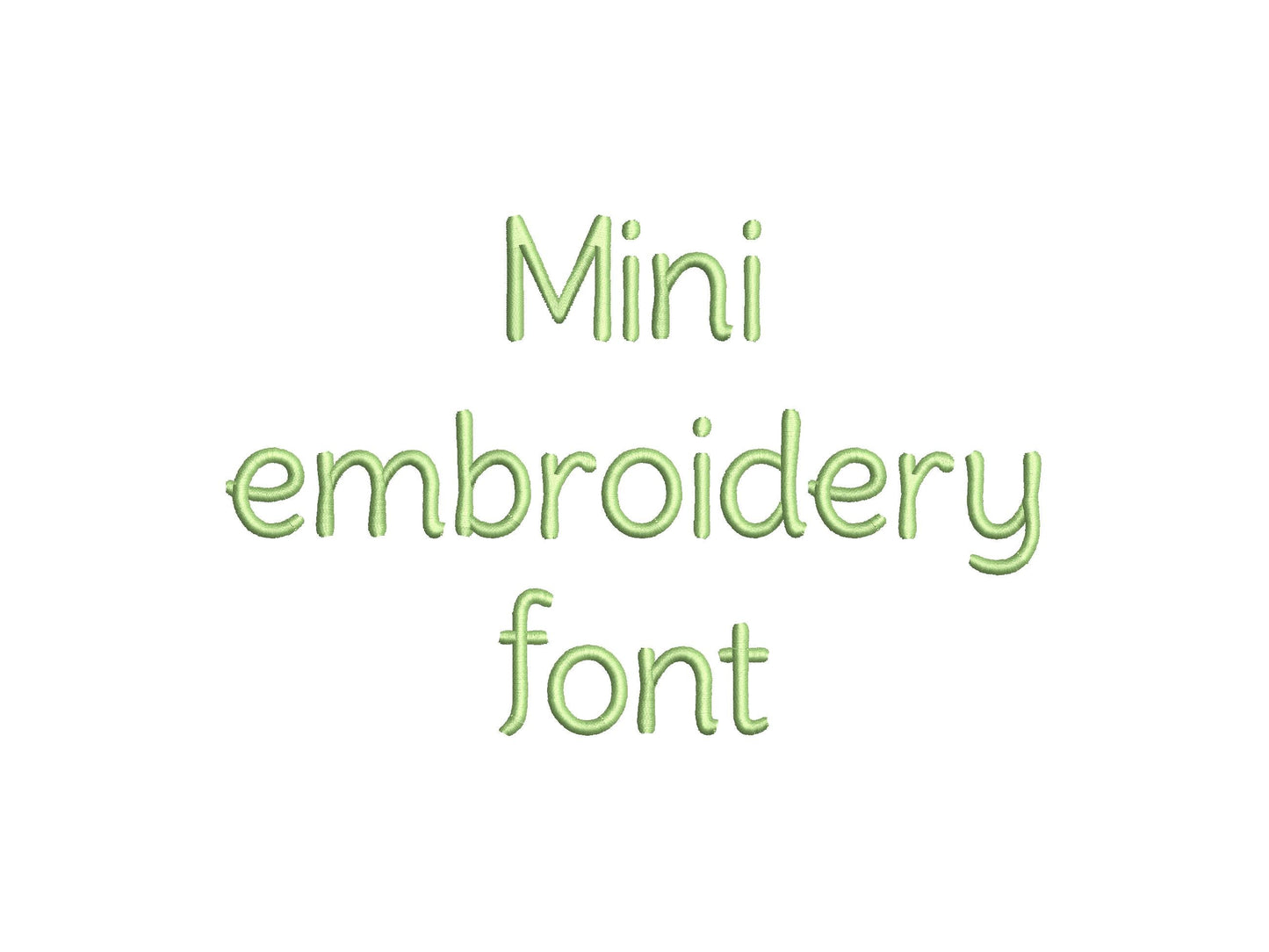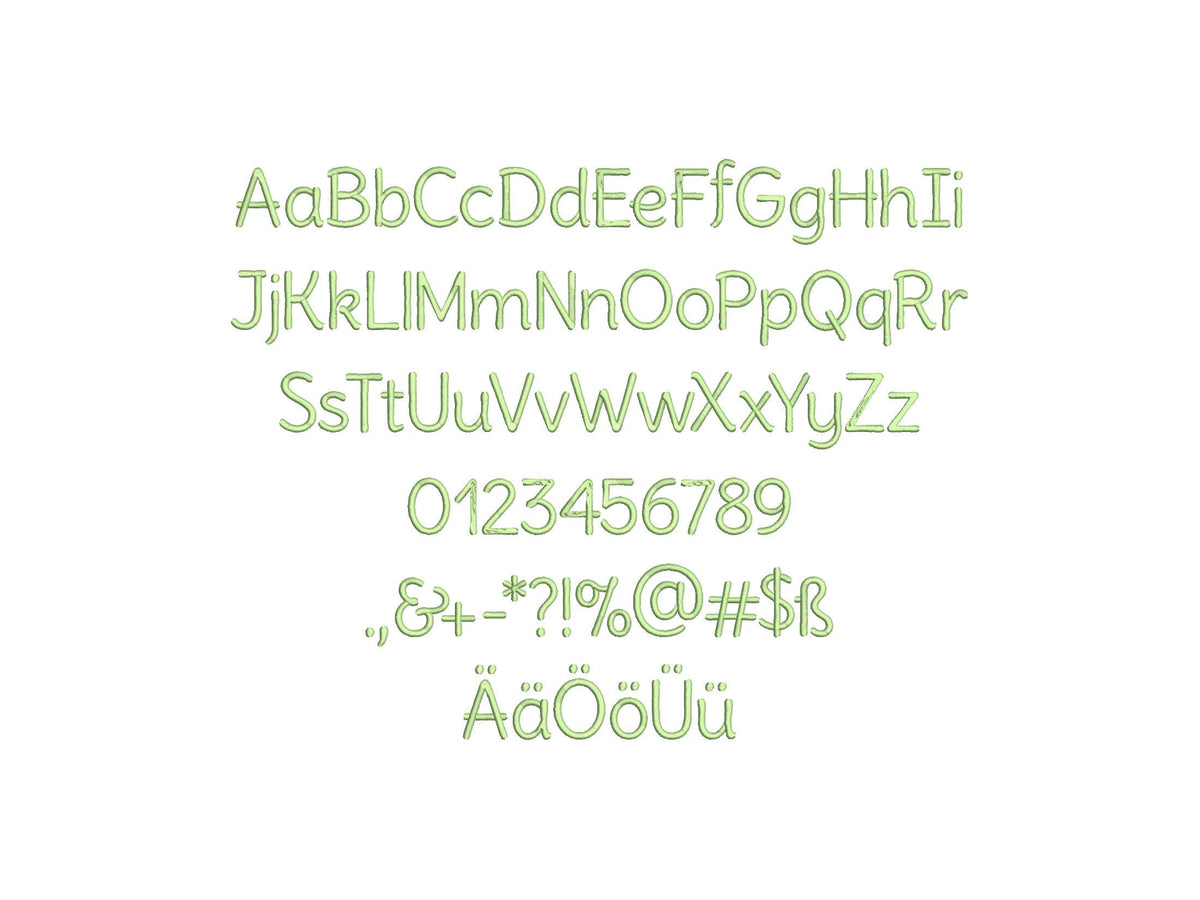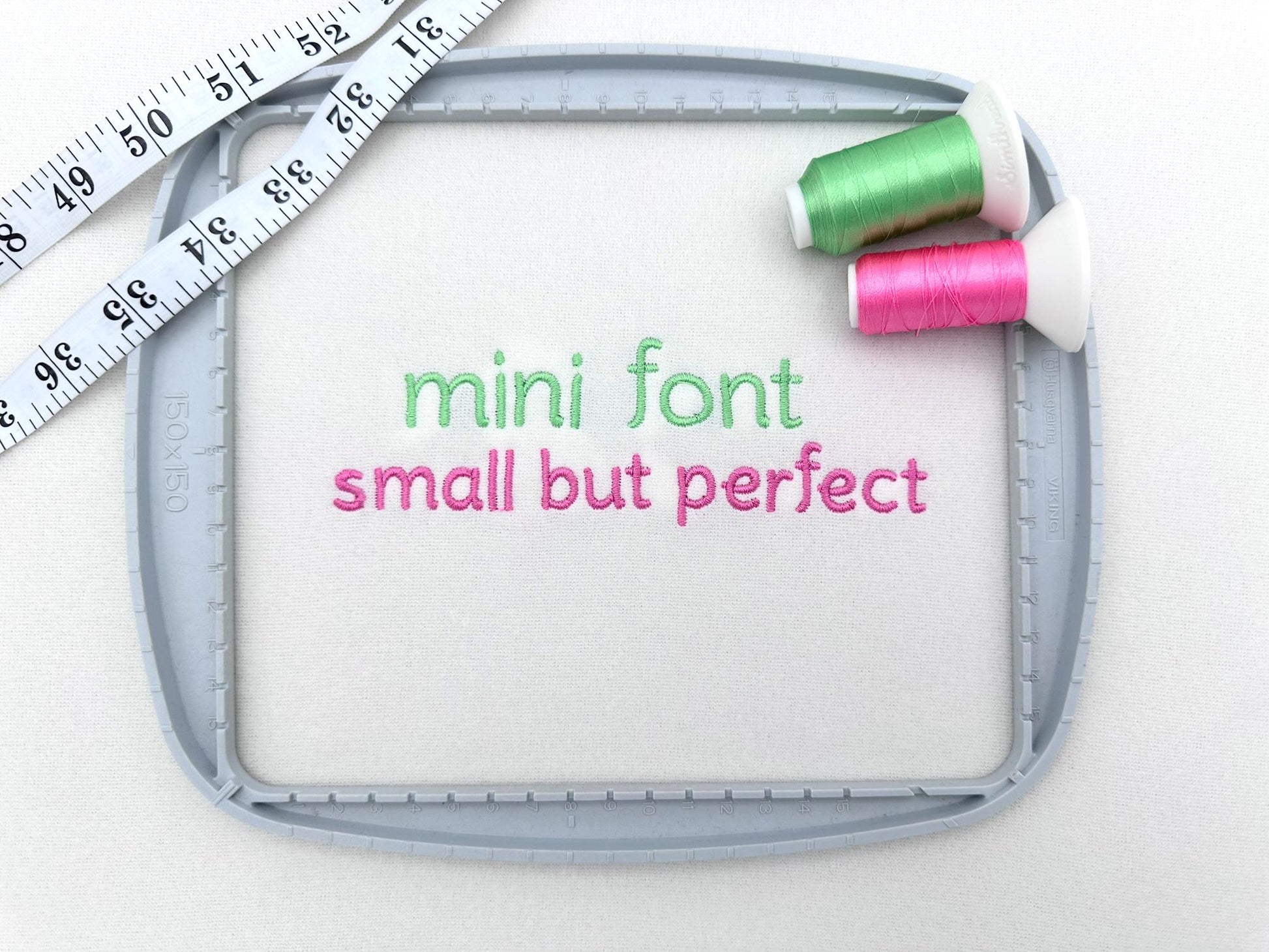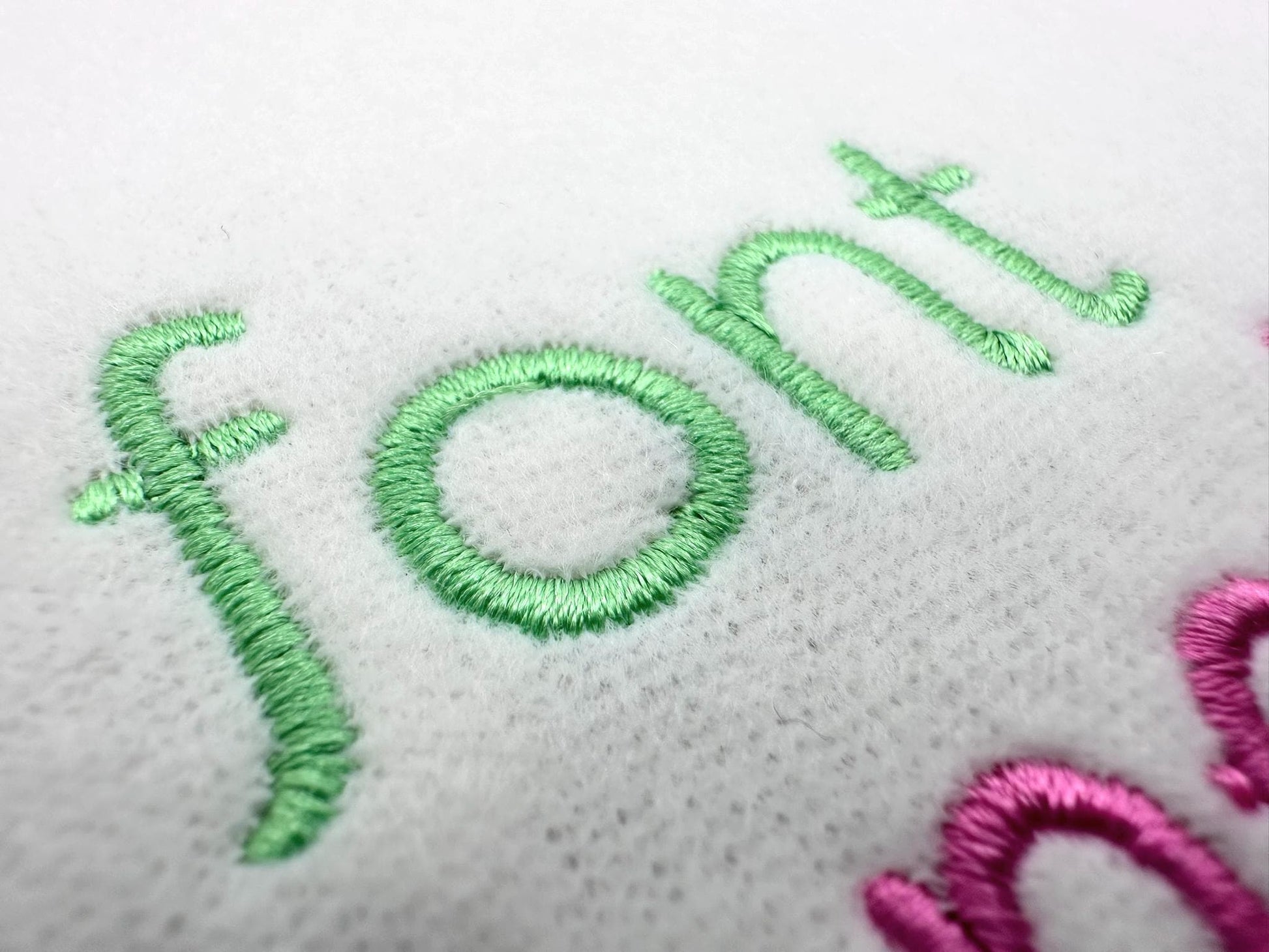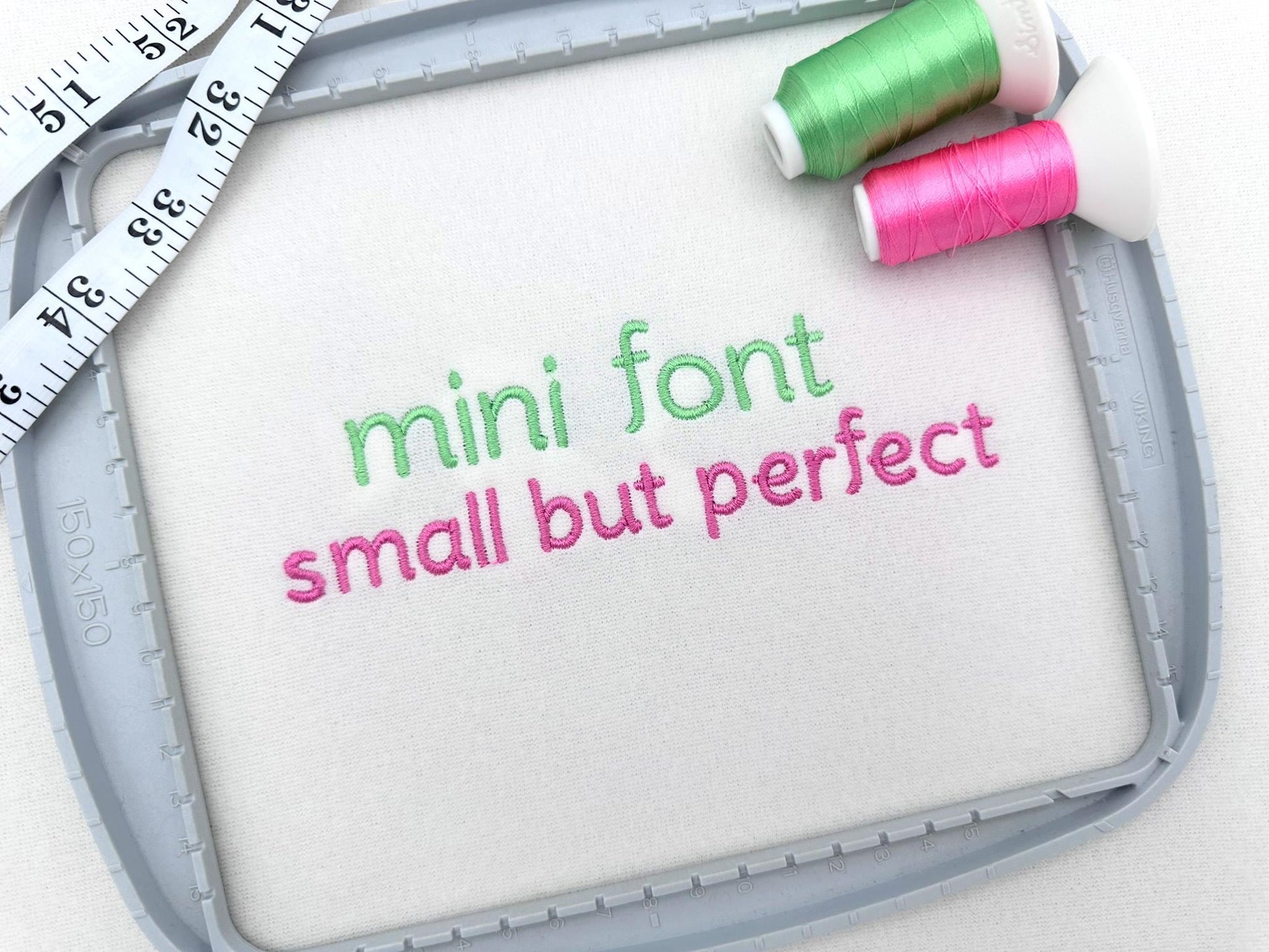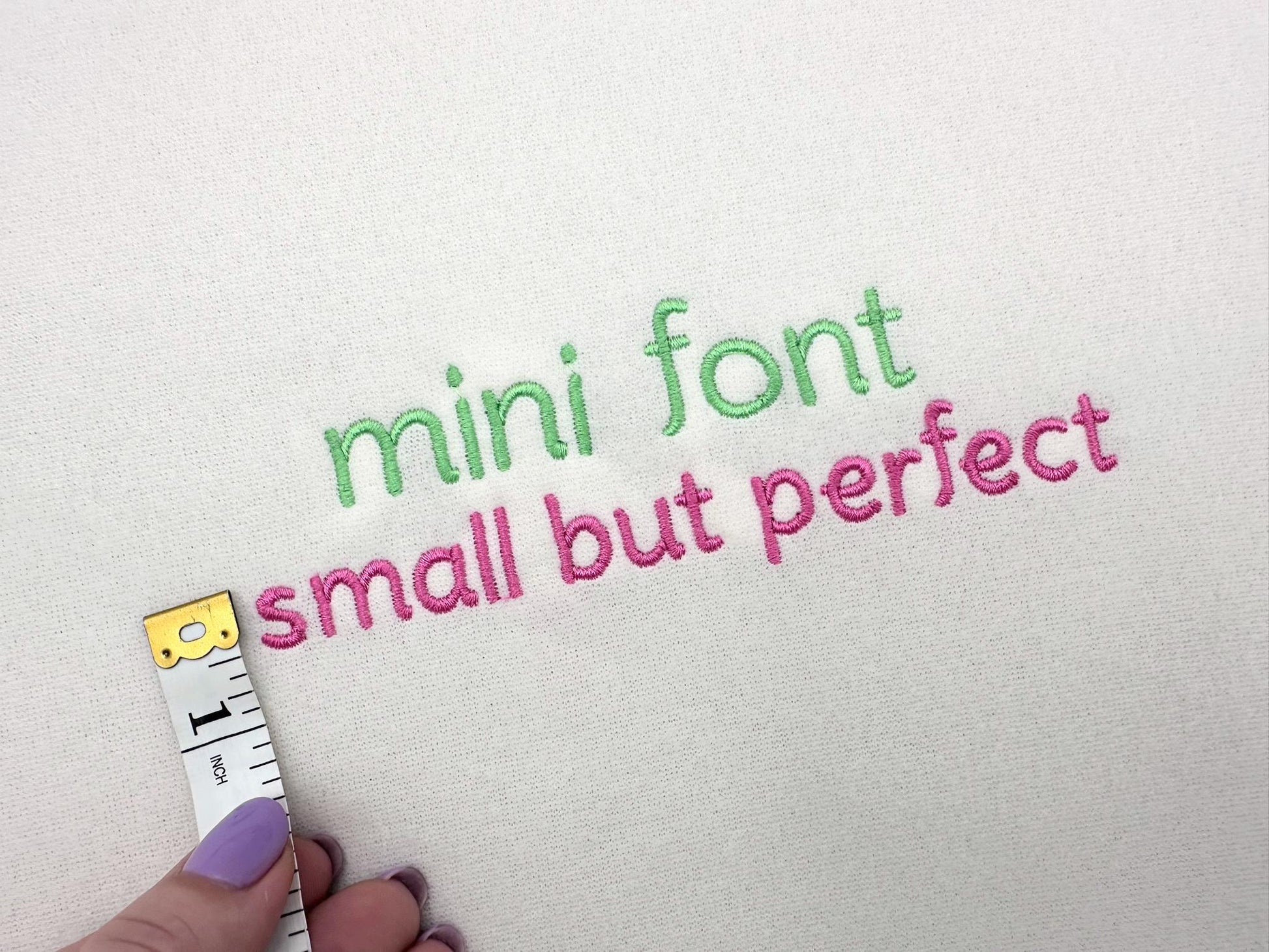
Little Mini Delicate Font
Or click to open the linkA small, delicate font for little names. Great on caps, pockets, cuffs and labels.
The letters come in six mini sizes: 0.6, 0.8, 1.3, 1.7, 2.1 and 2.5 inches. Includes uppercase and lowercase letters A to Z, numbers 0 to 9 and punctuation, plus the letters Ä, Ö and Ü.
- Mini delicate font
- Uppercase and lowercase letters, numbers 0 to 9, punctuation, Ä Ö Ü
- 6 sizes, 0.6 to 2.5 in